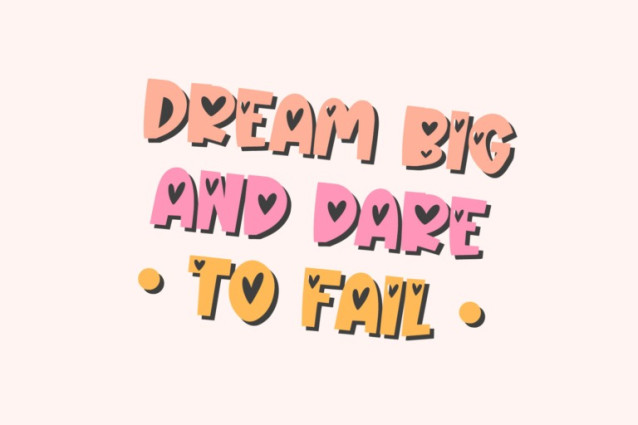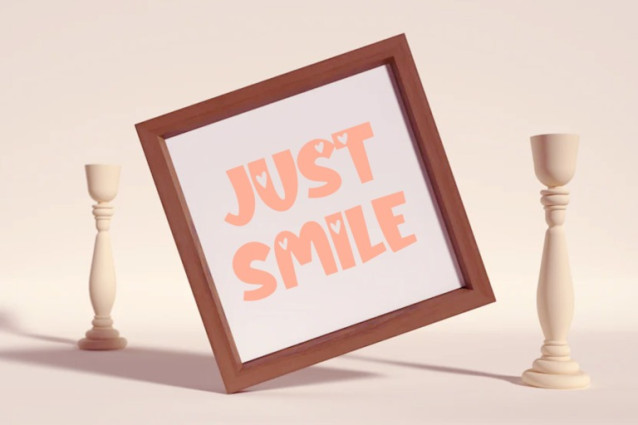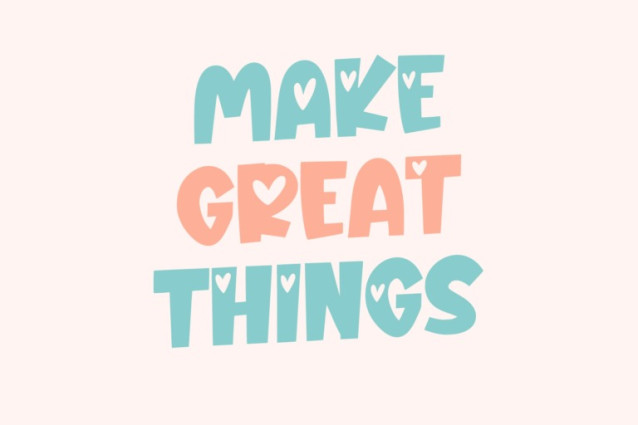
Loving Angel Font
Loving Angel Font a charming display font that embodies the warmth and innocence of celestial beings. Crafted with large letters, this font radiates joy and sweetness, making it the perfect choice for projects that seek to inspire love and positivity.
Loving Angel enchants with its playful style and rounded shapes, evoking a sense of childlike wonder and innocence. Each letter is meticulously designed to capture the whimsy of angelic beings, with rounded forms that invite viewers to embrace the magic of the moment. With its thick weight and low contrast, Loving Angel commands attention and ensures that your message is conveyed with clarity and confidence. In addition, enjoy the features here.